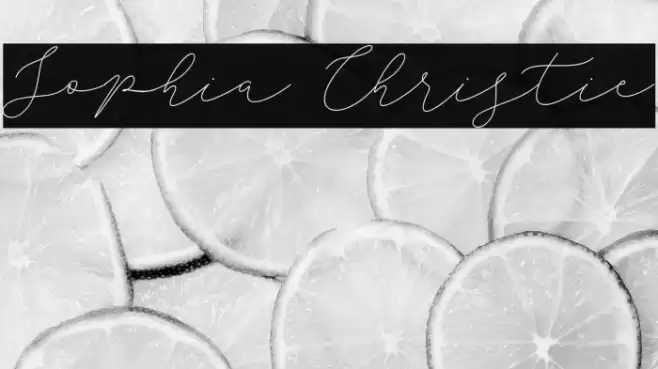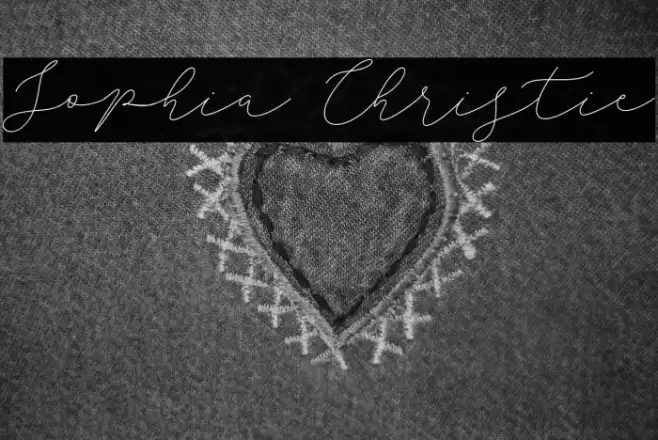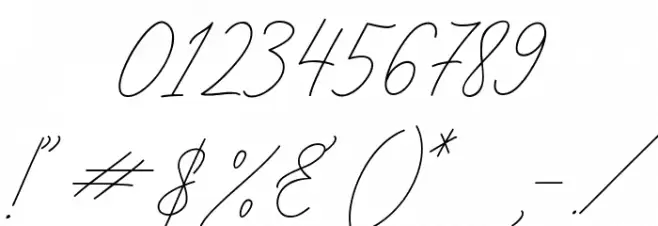
Sophia Christie Font
Sophia Christie Description
This elegant script font features a delicate and flowing style, characterized by its smooth, continuous strokes and graceful curves. The uppercase letters are slightly larger and more ornate, while the lowercase letters maintain a consistent fluidity, enhancing the overall aesthetic. The numerals are designed with a similar elegance, ensuring cohesion across all characters. Special characters are thoughtfully integrated, maintaining the font's sophisticated appearance. This font exudes a sense of refinement and is perfect for projects that require a touch of elegance and class.
A refined and elegant script font with flowing, continuous strokes from Regular fonts.
- Proposed Projects: Ideal for wedding invitations, elegant branding, personal stationery, and upscale packaging.
- Overall Style: Elegant
- Use Case: Logos, Invitations, Branding